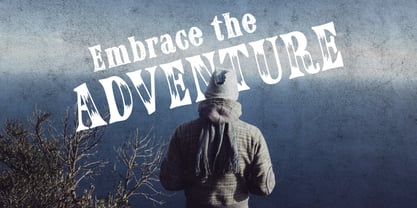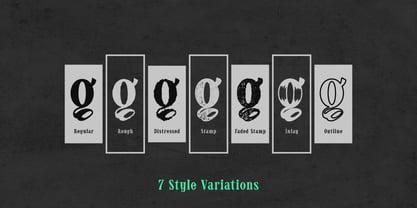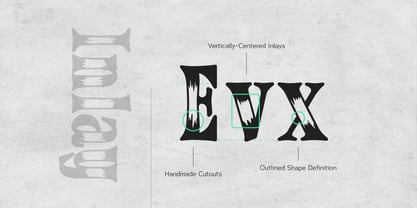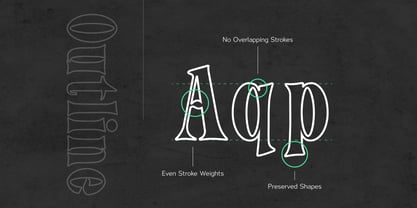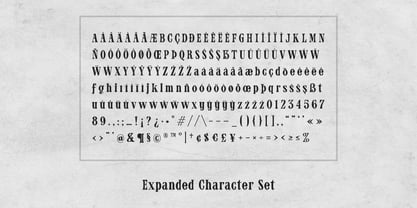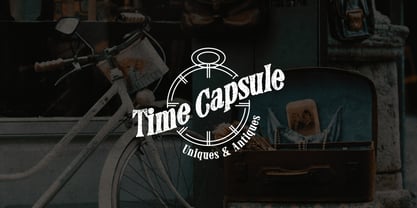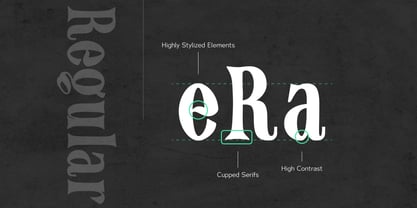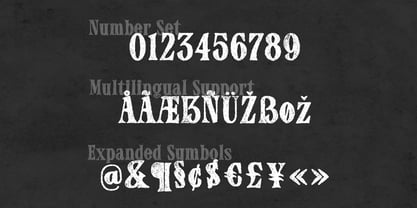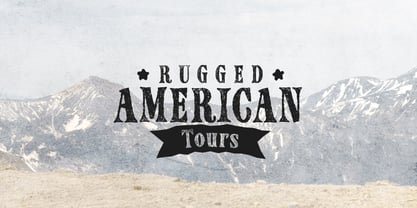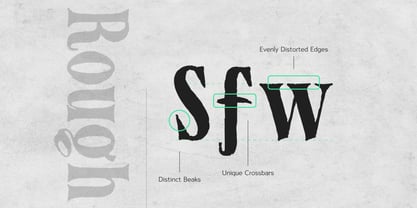
Authora
by Parker Creative
The Authora Font Family was designed by Alan Parker and published by Parker Creative. Authora contains 7 styles and family package options.
Step into the past with Authora, a sophisticated vintage serif typeface crafted for designers who need classic style with a touch of rugged character and modern treatments. Inspired by the charm of classic print techniques and mid-century typography, Authora provides seven unique variations, each bringing a distinct personality to your designs:
• Regular – Clean and refined, perfect for editorial work.
• Rough – A slightly worn texture, adding subtle depth.
• Distressed – A heavily weathered look for an authentic aged feel.
• Stamp – A bold, ink-stamped effect with organic imperfections.
• Faded Stamp – A bolder, even more eroded version of the stamp style.
• Inlay – A distinct engraving effect for vintage signage aesthetics.
• Outline – A stylish modern alternative with open letterforms.
Whether you’re designing branding, packaging, posters, book covers, or apparel, Authora adapts effortlessly to any project that calls for a classic yet rustic aesthetic. The complete typeface's versatility allows you to mix and match styles to create eye-catching compositions that evoke nostalgia and craftsmanship.
With high-quality kerning, multilingual support, and a complete set of uppercase & lowercase characters, numerals, and punctuation, Authora is a must-have for designers who want to bring unique character to life through typography.